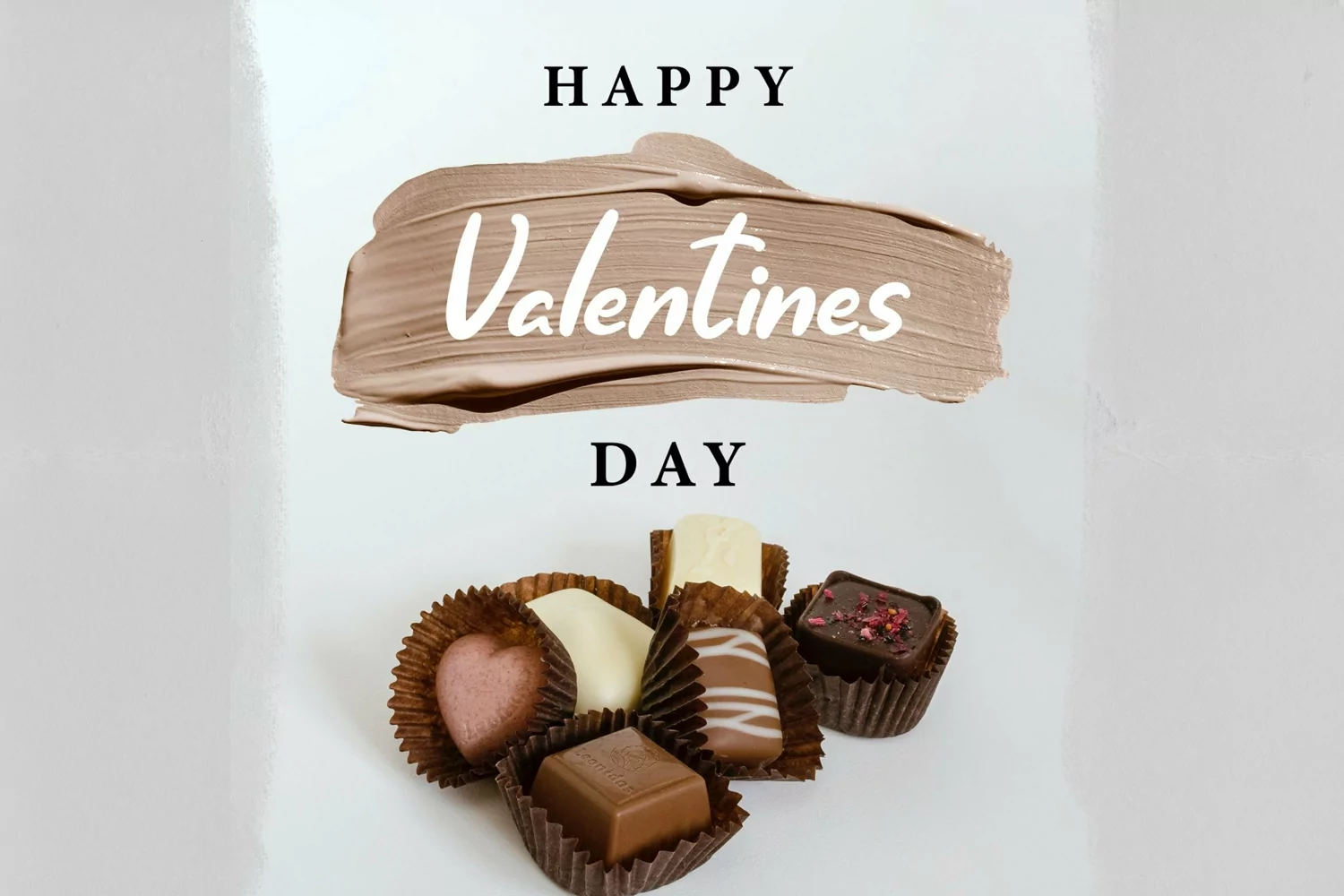
Web Font Hot Choco - Quirky Handrawn Font that contain lowercase, uppercase, symbol, and also support multi language. There’s a lot ligatures in this font. This Font also comes with ligatures, alternates and many more. this font suitable for fashion, branding, catalog and other design what you want.
HotChoco